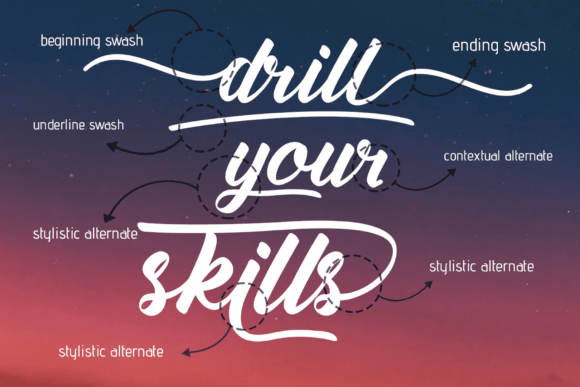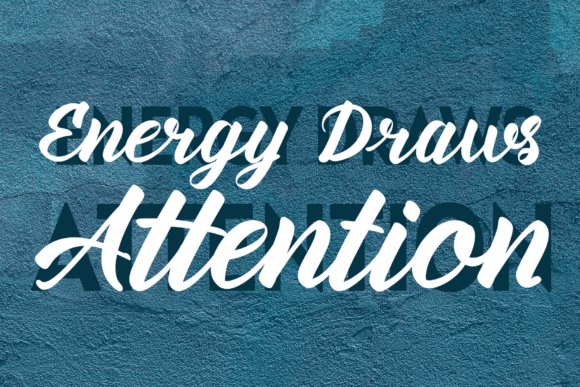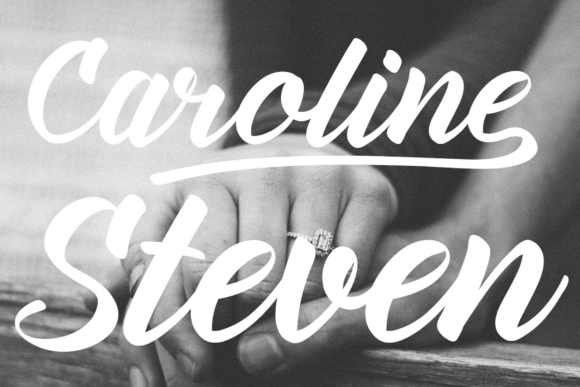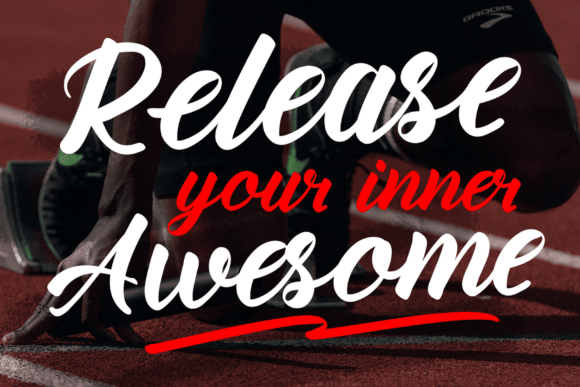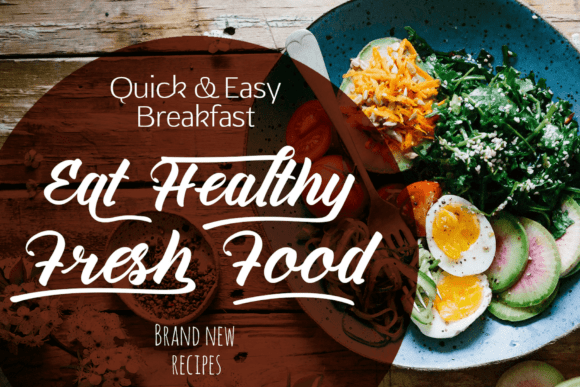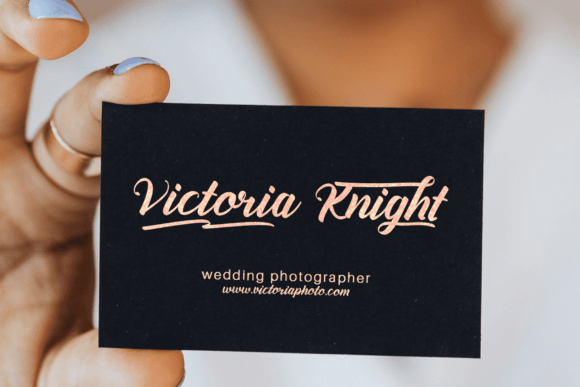
Amiable Forsythia Font: The Perfect Handwriting Script for Designs that Need Heart
Are you tired of using the same old fonts for your designs? Do you want to add a touch of warmth and personality to your wedding stationery, branding, or social media visuals? Look no further than Amiable Forsythia, a bold and joyful handwriting script font that’s perfect for designers and crafters who want to bring their words to life.
What is Amiable Forsythia?
Amiable Forsythia is a handwriting script font that’s been crafted with love and care to capture the warmth and expressiveness of ink-on-paper lettering. This font is perfect for those who believe that every word deserves to feel alive, and it’s ideal for designs that need a touch of heart and personality.
With its bold, bouncy, and beautifully human design, Amiable Forsythia is the perfect choice for wedding stationery, branding, and lifestyle creatives who want to add a touch of charm and whimsy to their designs. Whether you’re designing a wedding invitation, a logo, or a social media graphic, this font is sure to bring a smile to your audience’s face.
The Benefits of Using Amiable Forsythia
So why choose Amiable Forsythia for your designs? Here are just a few benefits of using this amazing handwriting script font:
- Warm and Expressive: Amiable Forsythia captures the warmth and expressiveness of handwritten lettering, adding a touch of personality to your designs.
- Perfect for Weddings: This font is ideal for wedding stationery, including invitations, save-the-dates, and thank-you cards.
- Branding and Lifestyle: Amiable Forsythia is also perfect for branding and lifestyle creatives who want to add a touch of heart and personality to their designs.
- Easy to Read: Despite its bold and playful design, Amiable Forsythia is easy to read, making it perfect for body text and headlines.
- Instant Charm: This font brings instant charm and whimsy to your designs, making it perfect for designers and crafters who want to create something truly special.
How to Use Amiable Forsythia
Here are a few tips for using Amiable Forsythia in your designs:
- Pair it with a Simple Font: Pair Amiable Forsythia with a simple font, such as Arial or Helvetica, to create a beautiful contrast.
- Use it for Headlines: Use Amiable Forsythia for headlines and titles to add a touch of personality and whimsy.
- Add some Texture: Add some texture to your designs by using Amiable Forsythia with a texture overlay or a background image.
If you’re looking for a handwriting script font that’s perfect for designs that need heart, look no further than Amiable Forsythia. With its bold, joyful, and beautifully human design, this font is sure to bring a smile to your audience’s face.
- Handwriting script font
- Bold, joyful, and beautifully human design
- Perfect for weddings, branding, and lifestyle creatives
- Warm and expressive
- Easy to read
- Instant charm and whimsy